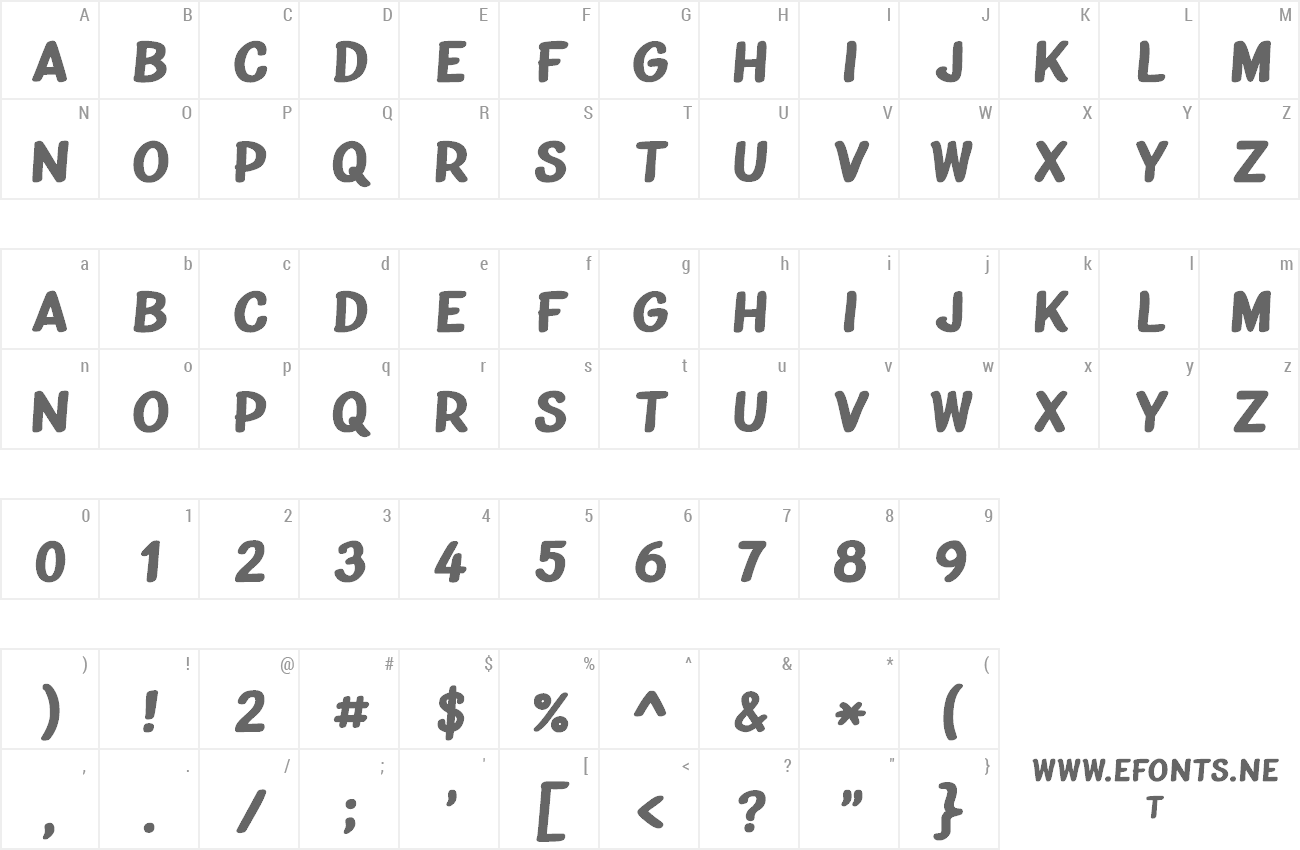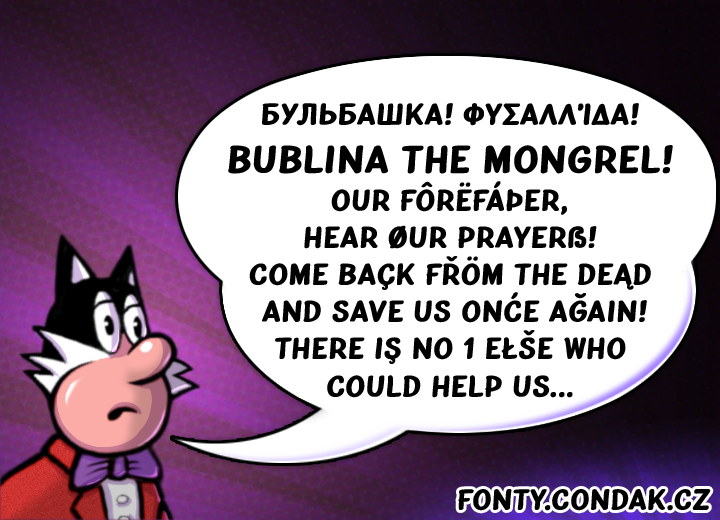
Preview and download Bublina the Mongrel Font. Created by V�t Čond�k in Fancy Comic styles with Free for personal use license.
This font started as an italic version of my font Bublina the Dog. However during the tweaking it became so different from the original that it became a new font requiring a slightly different name. =) It's quite simple and bold to be easily readable at all sizes and it uses just upper case letters. It includes the full Latin set, Greek and Cyrillic. http://fonty.condak.cz/detail.php?font=bublinam |